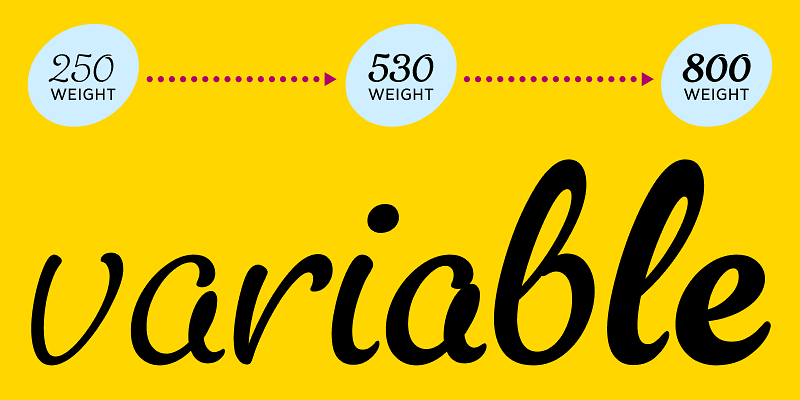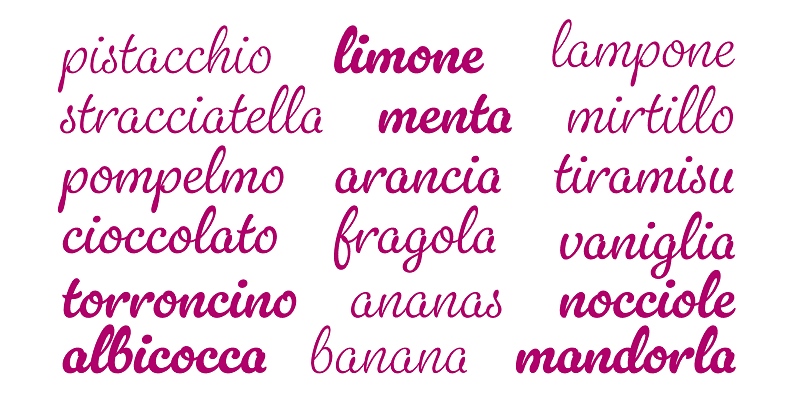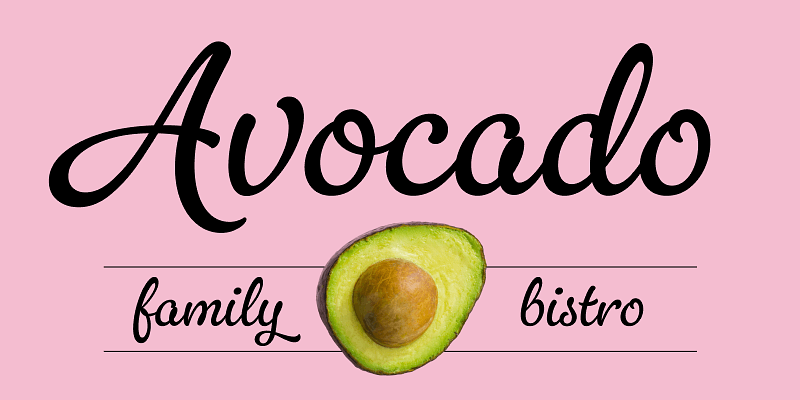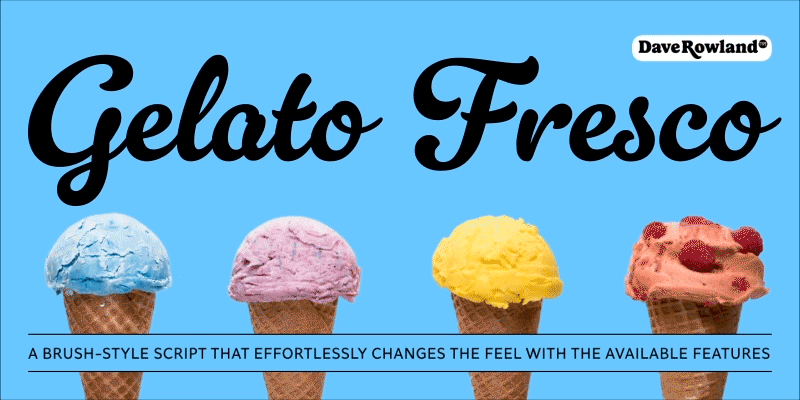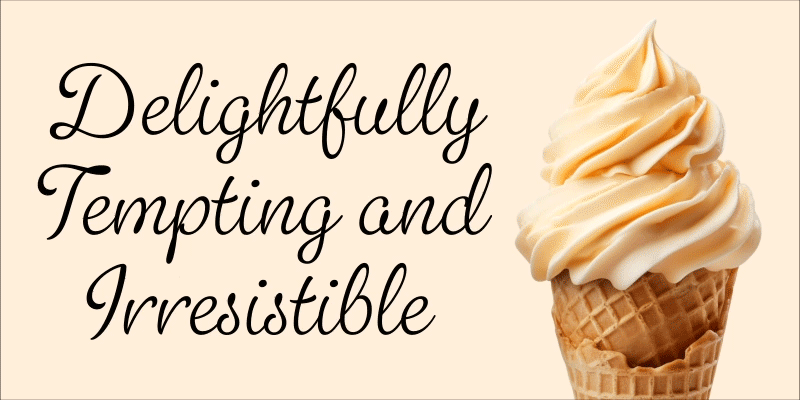
Gelato Fresco Variable is a brush-style script family that started life in 2011 as the popular Gelato Script. What was always typographically refined has reached new levels of versatility with an expanded weight range. This design has graced everything from designer handbags to prime-time TV shows, food blogs, wedding invitations, glossy magazines, and ice cream shops. You can effortlessly change the feel with the many features available, and it will work like a charm right out of the box.